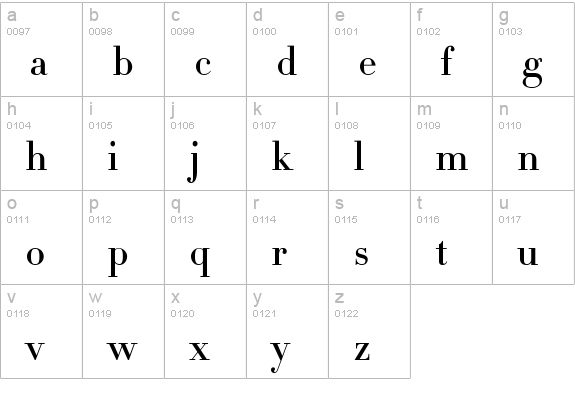
Didot-HTF-M06-Medium Font Details
Didot-HTF-M06-Medium is a balanced, medium-weight variant in the Didot typeface family \xE2\x80\x94 well suited to sub-headlines, navigation, and balanced editorial work.
Didot-HTF-M06-Medium font is a sophisticated and elegant typeface with a modern twist. Its timeless design and medium weight make it perfect for various design projects, from editorial layouts to branding materials. The thin serifs and high contrast between thick and thin strokes create a sense of refinement and luxury. This font is freely available to download at FontsMarket.com, making it accessible to designers and creatives looking to add a touch of sophistication to their work. Whether you're designing a magazine spread, a logo, or a wedding invitation, Didot-HTF-M06-Medium font will elevate your design with its classic yet contemporary look. Let this font be the perfect addition to your font collection, enhancing your projects with its elegance and style.